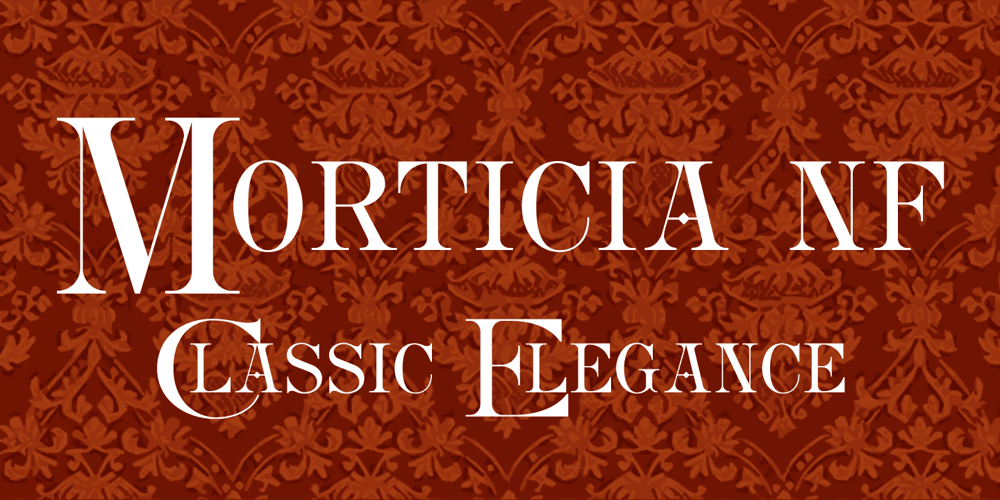
Morticia NF Font Family was designed by Nick Curtis and published by Nick’s Fonts. Morticia NF contains 1 styles and family package options. From Mortised to Morticia, this quaint titling face will add antique charm and a bit of drama to any project it graces. Both versions support the Latin 1252, Central European 1250, Turkish 1254 and Baltic 1257 codepages.